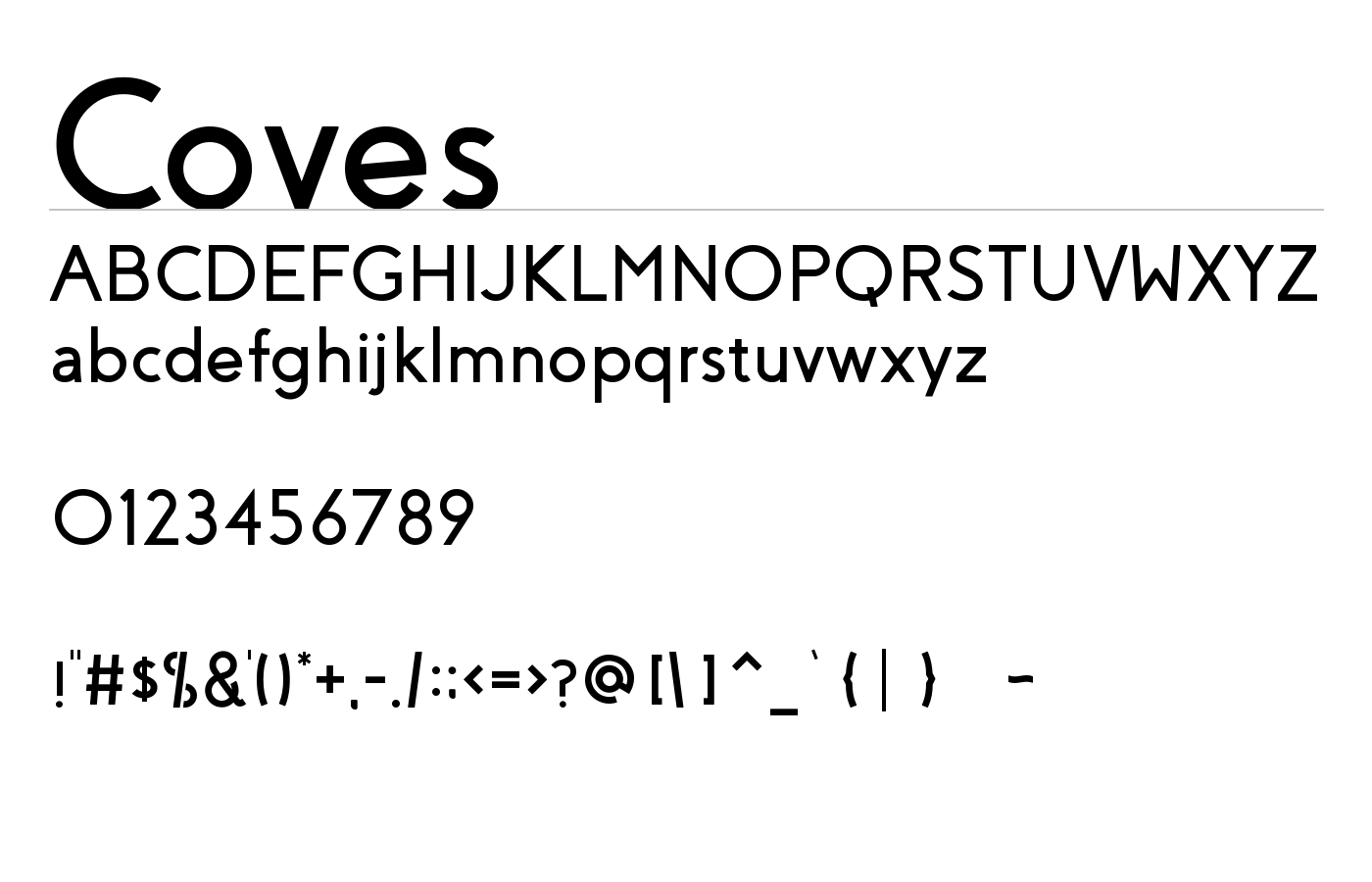
Coves is a clean, modern sans serif font characterized by its light weight, open letterforms, and subtle geometric touches that create a friendly yet refined look. Its medium x-height and smooth curves ensure excellent readability, making it ideal for branding, editorial design, and user interfaces where clarity and approachability are key. This versatile typeface balances simplicity with a touch of personality, fitting effortlessly into both contemporary and professional projects.
Coves Font
About Coves Font
| Designer | Jack Harvatt |